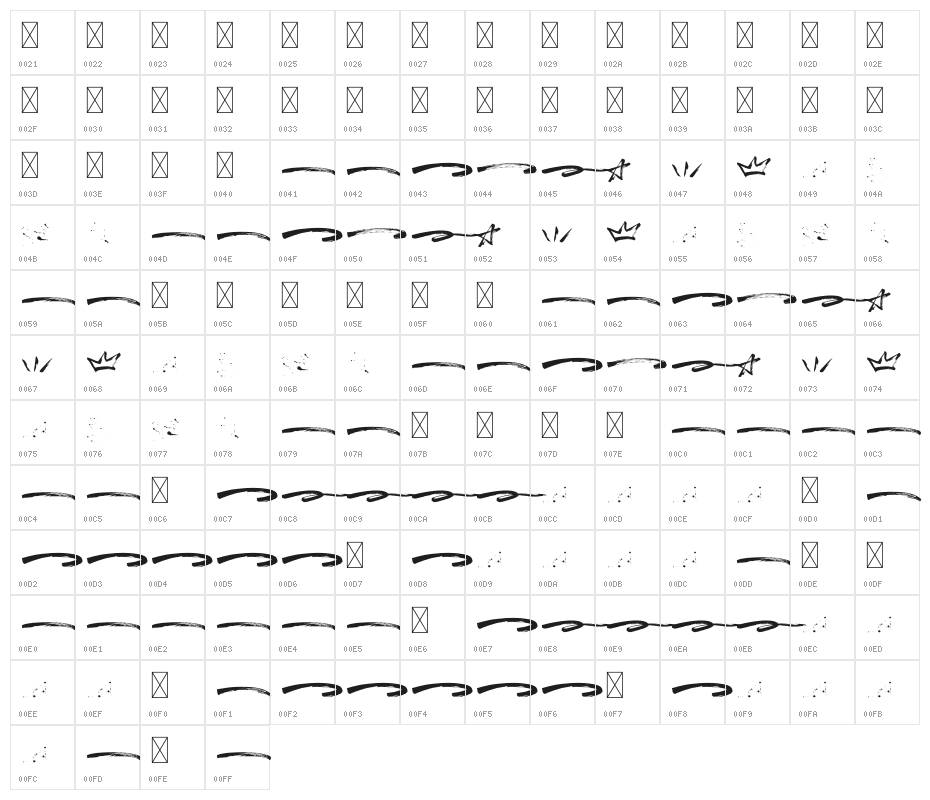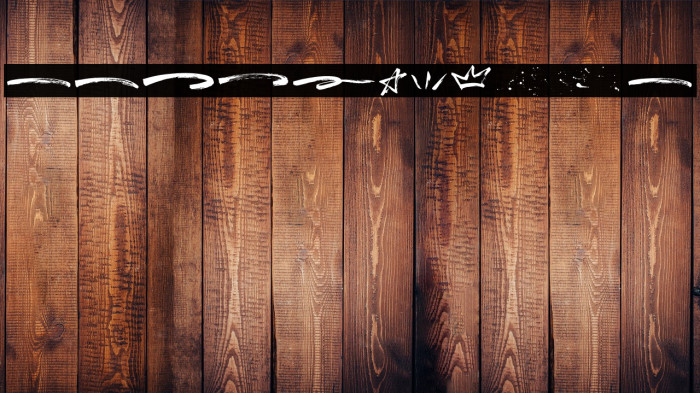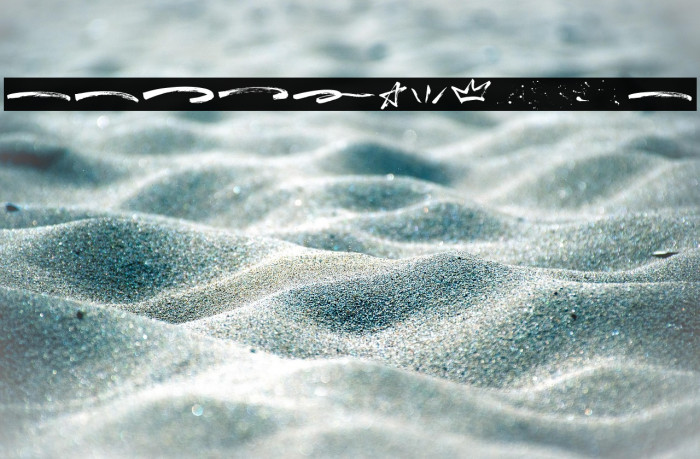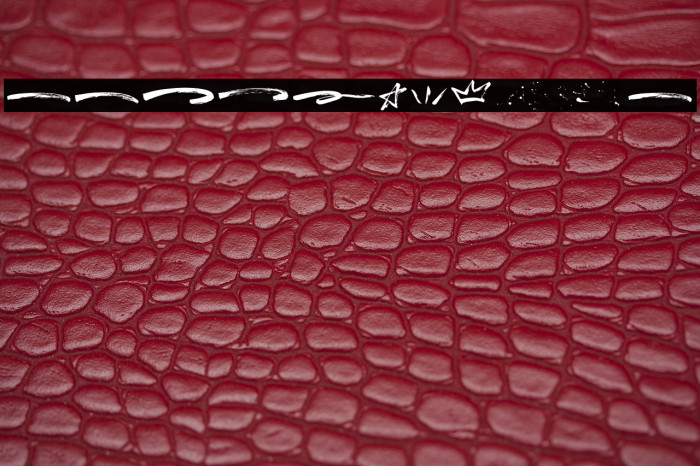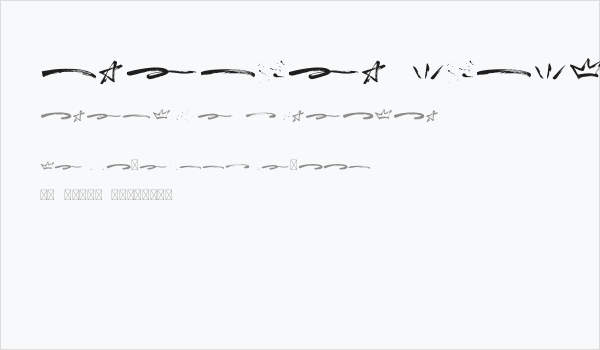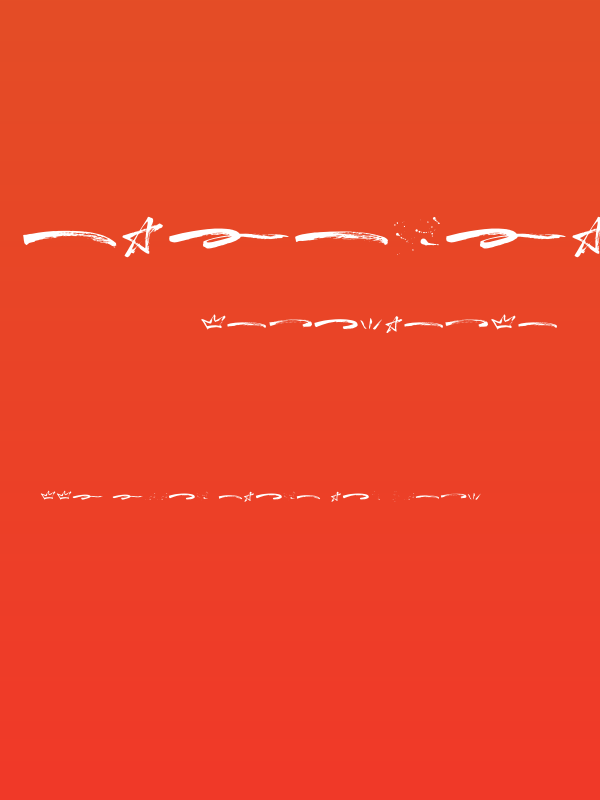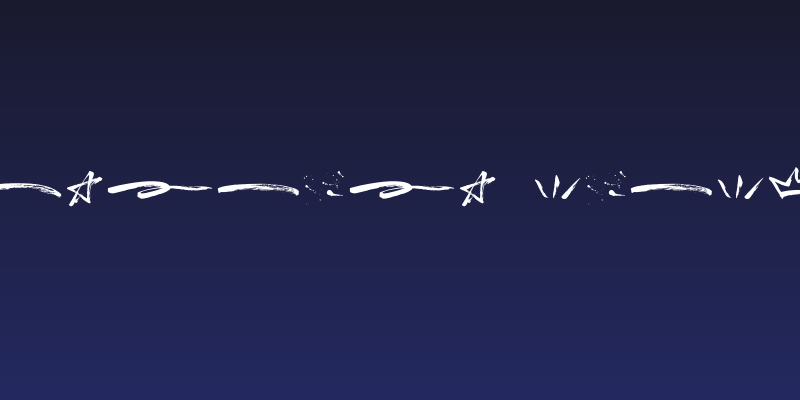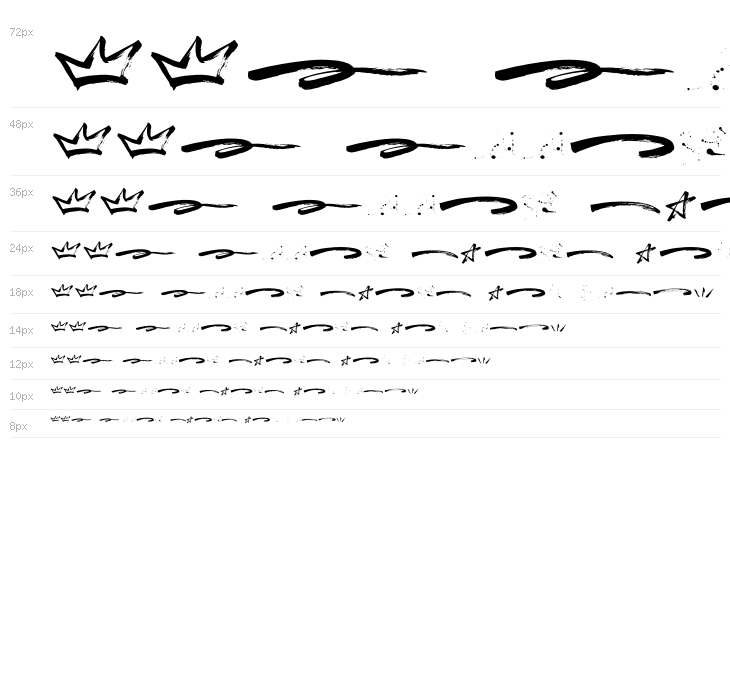
Breaker Swash Font
Breaker Swash Description
The image contains decorative swashes and symbols, not a traditional font.
| Use Case | Decorative elements |
| Proposed Projects | Borders, decorative elements. |